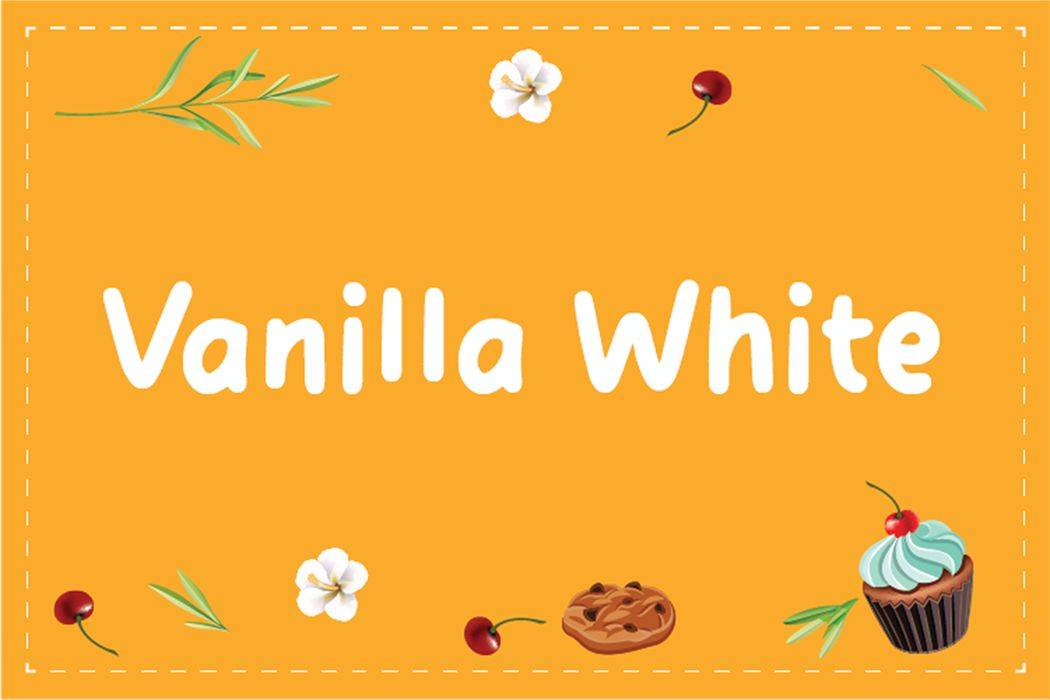
Vanilla White is a playful, casual sans serif font with a friendly hand-drawn style. Its rounded, bold strokes and slightly irregular letterforms give it a welcoming, informal feel, making it perfect for creative projects, branding for fun or youth-oriented products, and headlines that need a warm, approachable look. This font works well where a lighthearted, human touch is desired without sacrificing readability.
Vanilla White Font
About Vanilla White Font
| Font family | Vanilla White Font |
| Designer | Lady Hanna |